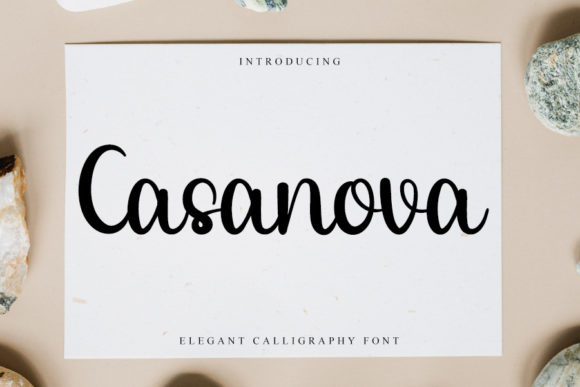
A First Impression: Casanova Font Review
As soon as I opened Casanova, I knew I had found something special. This stylish handwritten font boasts a contemporary atmosphere and impeccable form, inspired by timeless classic calligraphy. Here’s what I love about it:
- ✅ Balanced and varied: Not too thin, not too thick – Casanova strikes the perfect balance, making it versatile for various design projects.
- ✅ Elegant and approachable: This font effortlessly combines sophistication with a touch of playfulness, perfect for designs that require a bit of flair.
- ✅ OpenType features: Casanova comes with a range of OpenType features, including glyphs and stylistic alternates, allowing for endless creativity.
While Casanova is an exceptional font, there are a few minor quirks to be aware of:
- ⚠️ Some characters may require manual kerning: As with any font, you might need to adjust kerning for certain character combinations to achieve optimal results.
The Story Behind Casanova
Casanova was inspired by the timeless elegance of classic calligraphy. Its creator aimed to craft a font that would strike the perfect balance between style and approachability. The result is a beautiful, handwritten font that exudes sophistication and creativity.
| What makes Casanova unique? | Casanova’s unique blend of elegance and approachability, combined with its OpenType features and balanced character set, make it a standout font. |
| Is Casanova suitable for body text? | While Casanova is an elegant font, it’s best suited for headlines, titles, and short paragraphs. For body text, consider a more traditional font for optimal readability. |